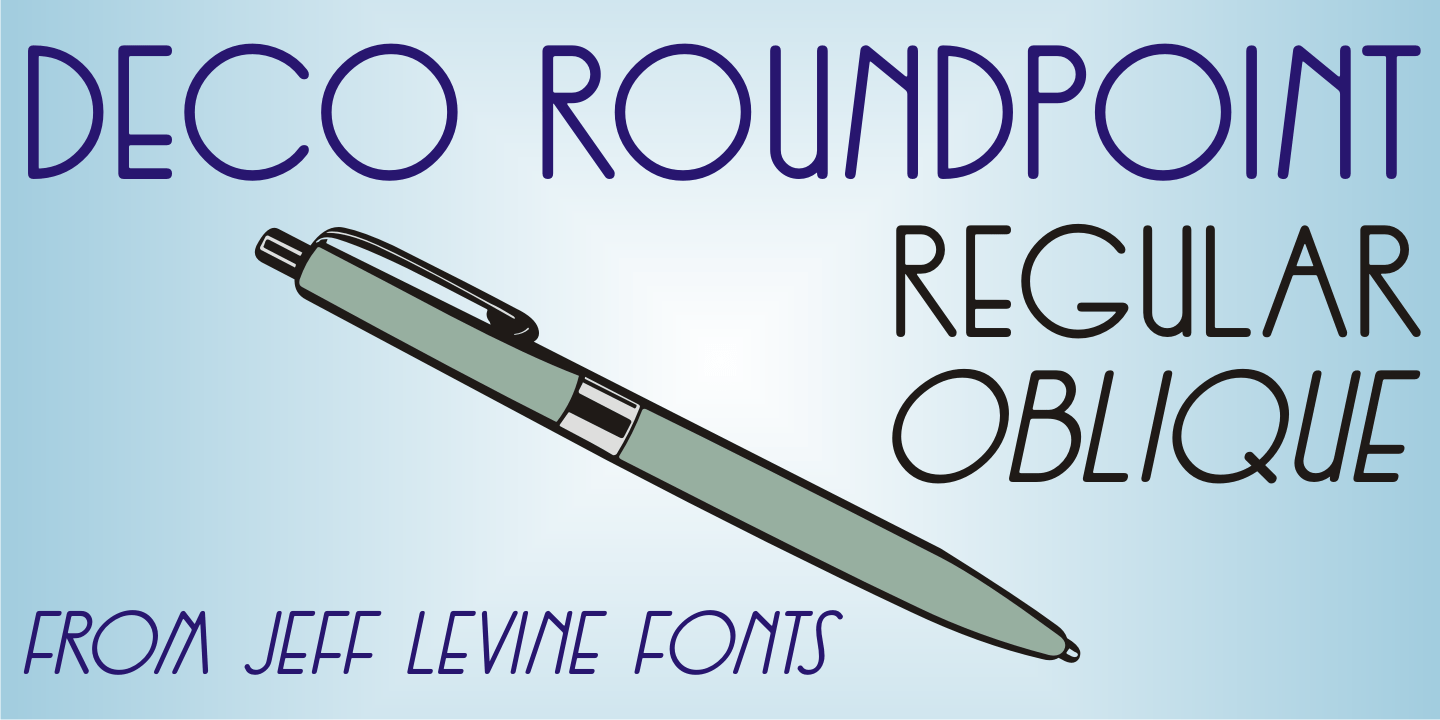
Deco Roundpoint
On the sheet music cover of the 1931 song 'When the Autumn Leaves of Life Begin to Fall”, the title is hand-lettered using a round tipped nib pen.
The combination of both an Art Deco lettering style and the rounded ends of the characters creates an exquisite, yet simple type design digitally preserved as Deco Roundpoint JNL; available in both regular and oblique versions.
Deco Roundpoint JNL Regular by Jeff Levine Fonts